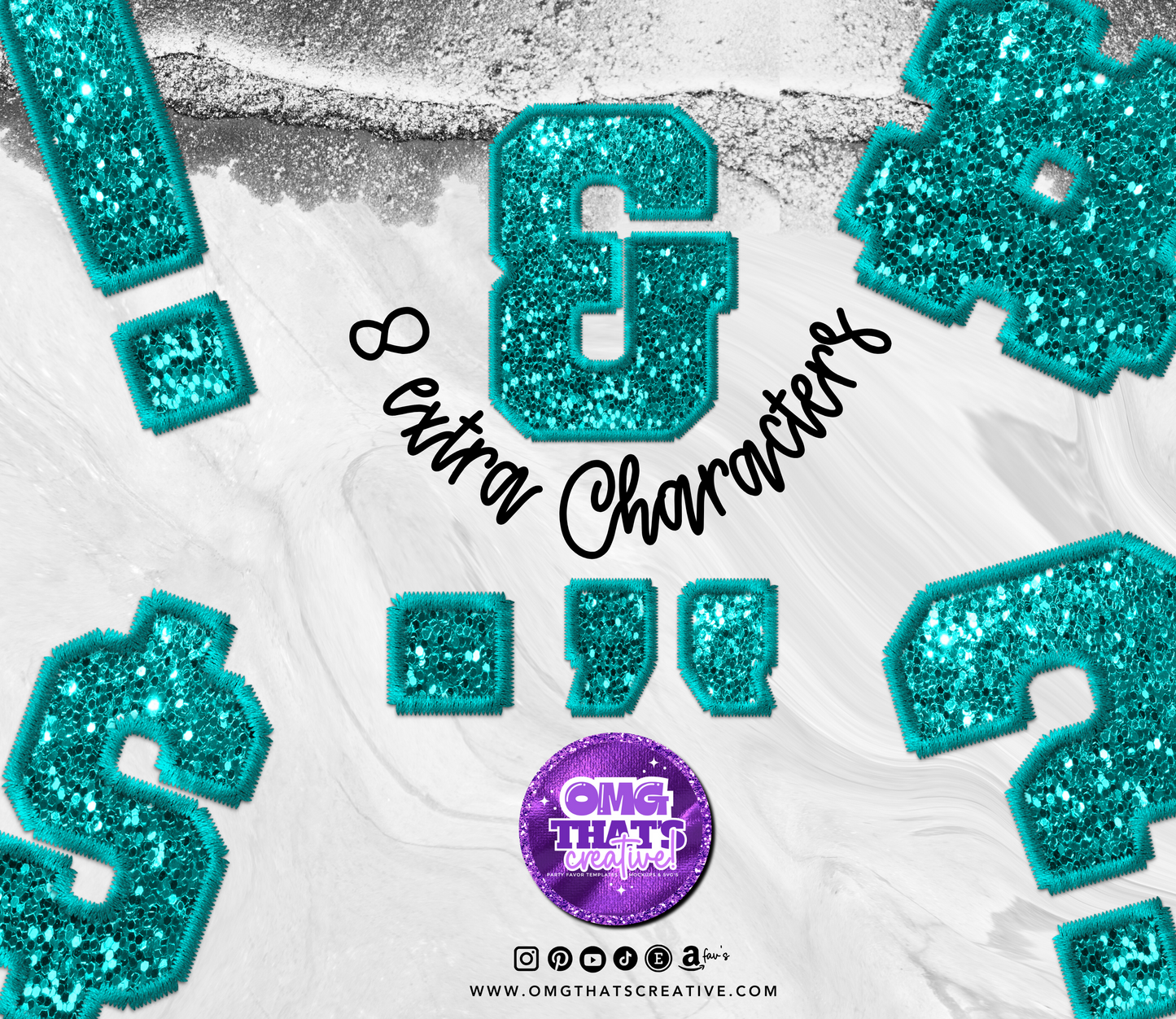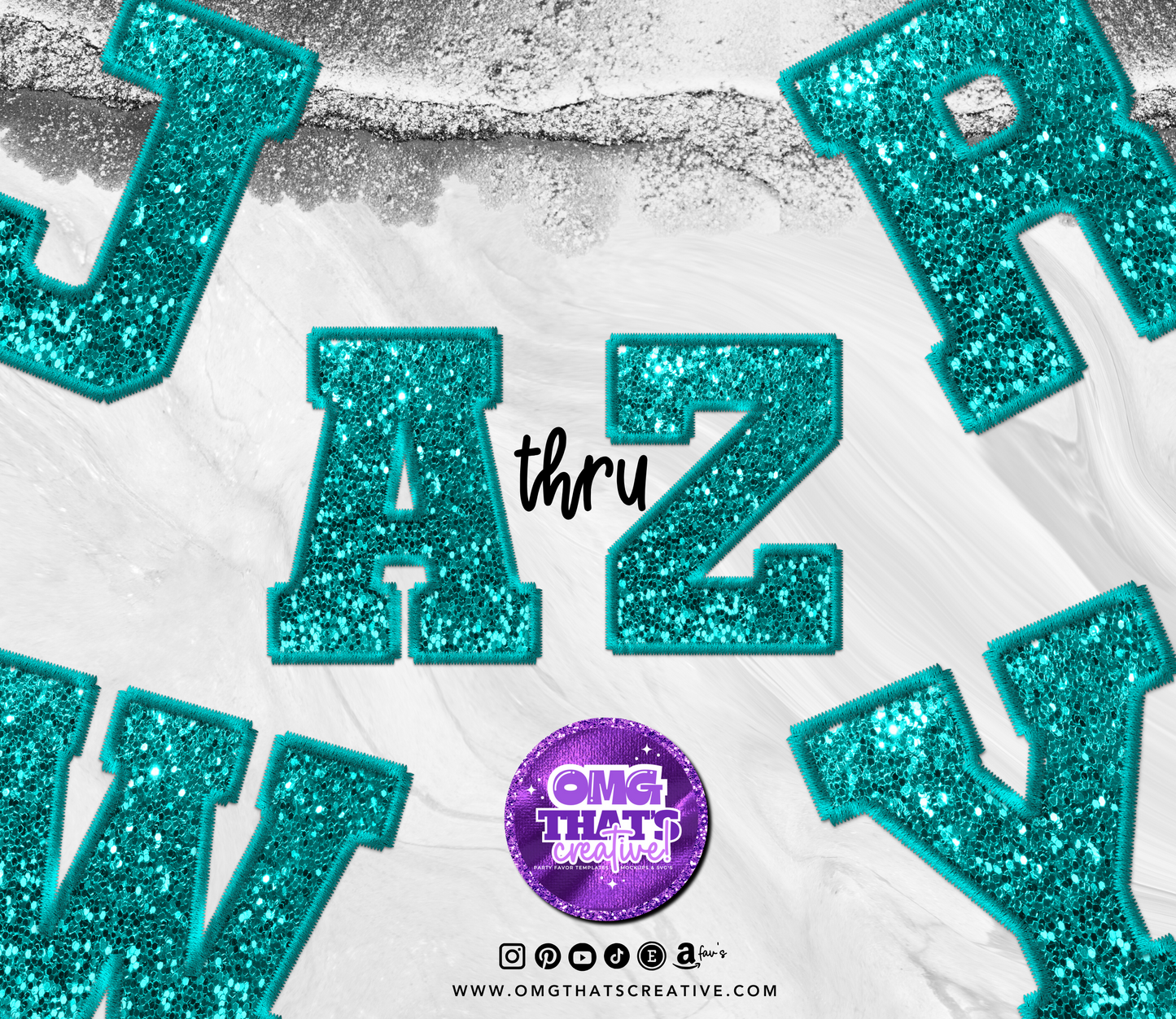
Teal Glitter Alphabet Font
👀 Are you looking to create your own image with shimmering glitter letters? Look no further! Our realistic embroidered letters are the perfect choice. Use these letters to make stunning DTF and sublimation files. If you are looking for specific colors- please do not hesitate to reach out! These images are individual png files that are 300 dpi and are sent as finished files with transparent backgrounds.